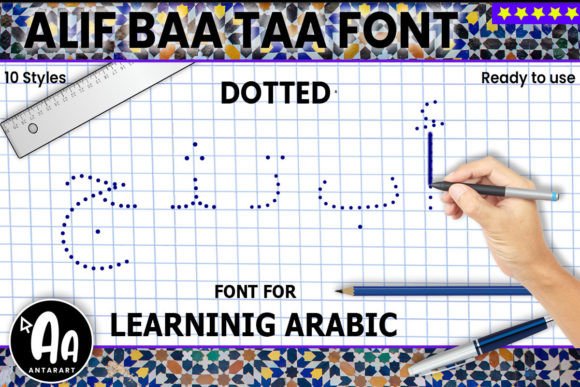
Alif Baa Taa Dotted Font
This handwritten Arabic font helps you to teach and learn Arabic or create thousands of Arabic worksheets using any software. It is a great learning resource for those who are interested in the Arabic language.